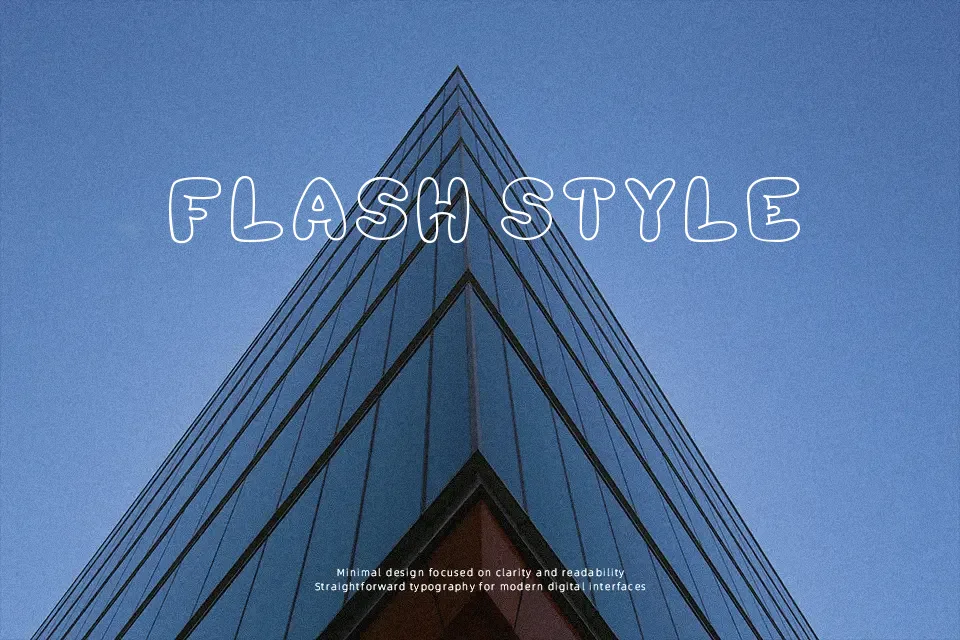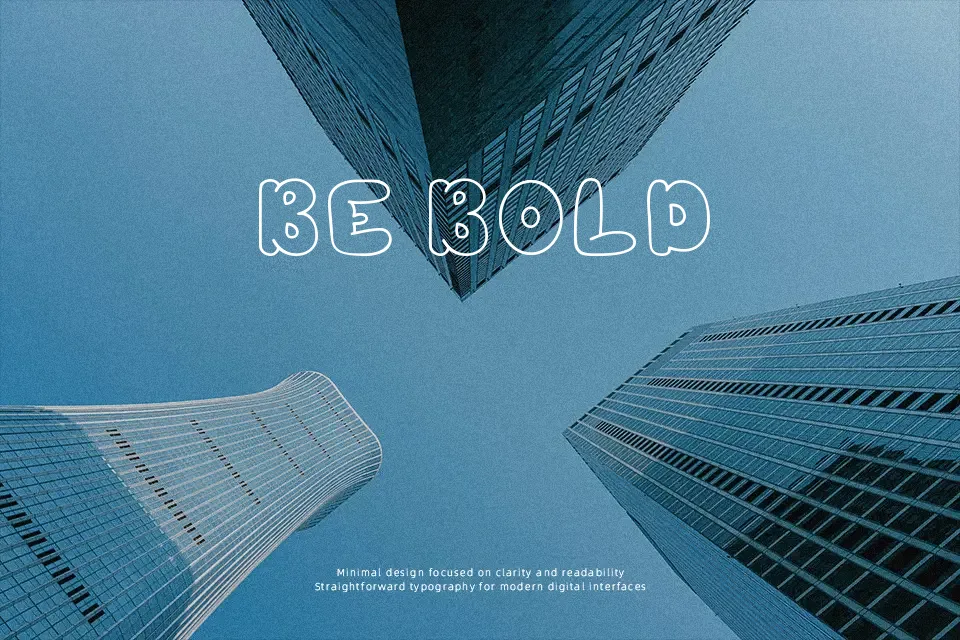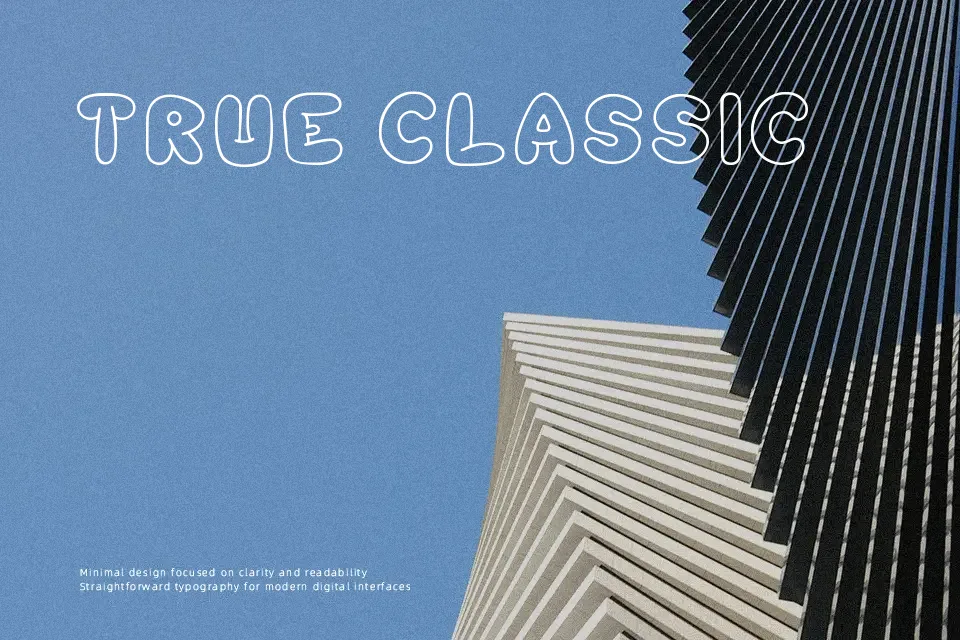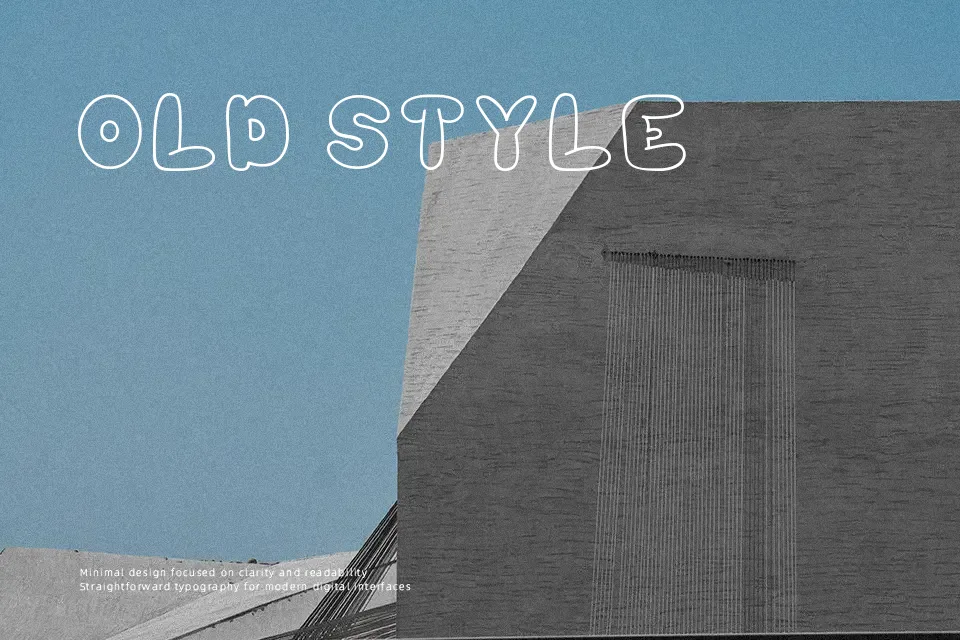
Bubbledupp Font
Designed by Marina Sanders
Bubbledupp is an outlined cartoon style font with thick, rounded strokes and generous counters that keep each letter airy despite its bold footprint. The spacing leans slightly tight, so headlines feel cohesive and compact without becoming cramped. Visually it reads as casual and fun rather than polished or corporate, which suits children’s products, party flyers, gaming overlays, and playful logo wordmarks. It holds up at larger sizes, but smaller body text can start to look noisy because of the outline structure. Compared with solid comic fonts, Bubbledupp feels lighter and more buoyant, but it also demands more contrast in the background to stay legible.
kids product logos and packaging
playful event posters and flyers
fun headings in gaming or streaming graphics
long paragraphs or dense body copy
formal corporate branding or reports
very small UI labels or captions
Perfect for gaming, kids, and logo, with a creative and cartoon style.